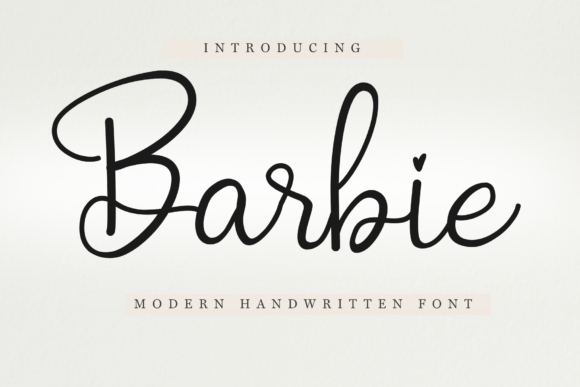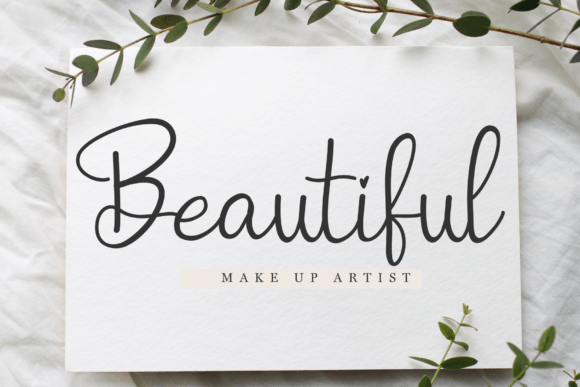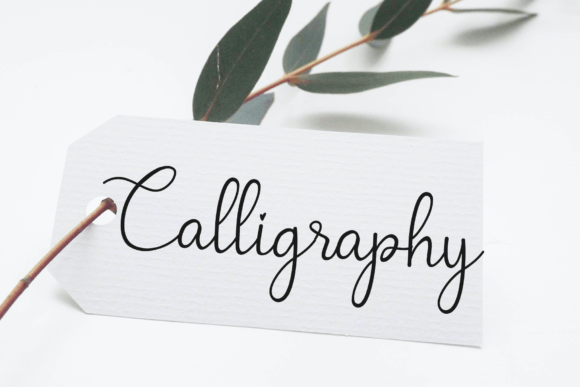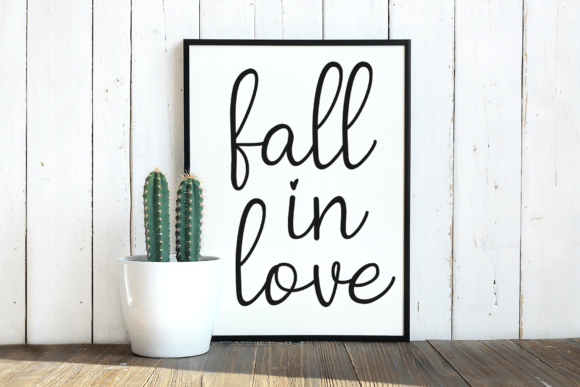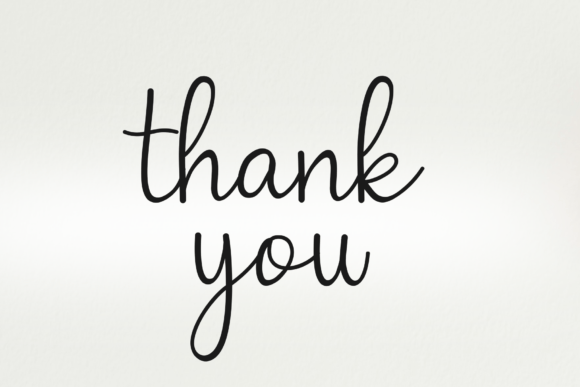
Barbie Font
Barbie Font: Elegant Script for Stunning Designs
“Barbie” is a gorgeous script font that exudes beauty and elegance, perfect for various design projects from wedding stationery to social media posts.
Key Features of Barbie Font
• Elegant Style: Barbie brings sophistication and charm to designs.
• Versatile Use: Suitable for many projects, including wedding invitations and packaging.
• Flowing Script: Creates a sense of romance and luxury in typography.
Wedding Stationery
Barbie’s elegant style is ideal for creating beautiful wedding invitations and other special event materials.
Branding and Packaging
Use Barbie to design sophisticated logo designs and packaging that convey luxury and refinement.
Social Media and Digital Content
The font’s charming look makes it perfect for creating eye-catching social media graphics and digital content.
Why Choose Barbie Font?
Barbie offers more than just beautiful letters. Here’s why it stands out:
• Enhances overall aesthetics with its exquisite script style
• Conveys a sense of romance and sophistication effectively
• Adapts well to various design themes and projects
By using Barbie, you open up new design possibilities. Its elegant style works well in many contexts, from greeting cards to poster designs. The font’s ability to convey beauty can inspire creative ideas and help you approach projects from a fresh, sophisticated perspective.
Barbie in Modern Design Trends
Barbie aligns perfectly with contemporary design trends that favor elegant simplicity. Its flowing script adds a personal touch while maintaining a luxurious feel, making it particularly effective for brands targeting upscale markets or those aiming for a refined, romantic image.
If you’re looking for a font that combines beauty with versatility, Barbie is an excellent choice. It’s perfect for adding a touch of elegance to your work, especially for projects that need a romantic, sophisticated feel.
Explore how Barbie can transform your designs. From branding projects to personal creations, this font brings a graceful and captivating quality to your work.